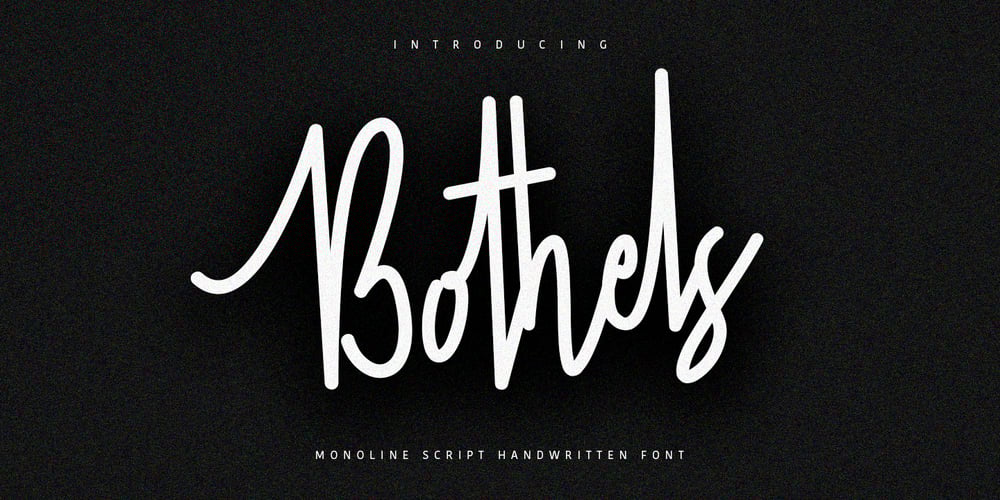
MC Bothels Font Family was designed by Gilang Maulana and published by Maulana Creative. MC Bothels contains 1 styles and family package options. Give your designs an authentic signature handcrafted feel. “ Bothels” is perfectly suited to signature, stationery, logo, typography quotes, website header, branding and more.Thanks for use this font.Maulana Creative